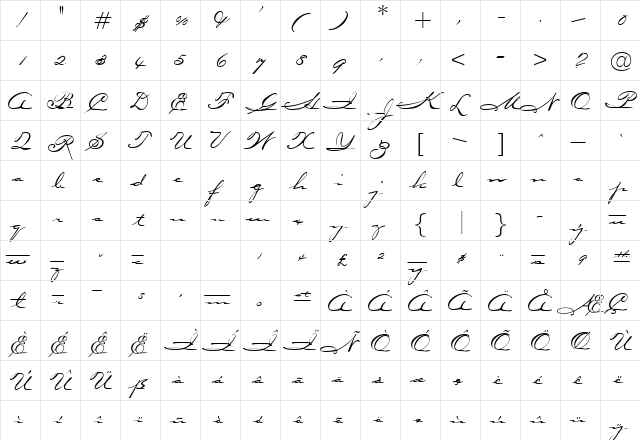
Oceanside DB Regular
Design Context for Oceanside DB Typeface
Oceanside DB is a composed and adaptable typeface that performs quietly and consistently across a wide range of design contexts.